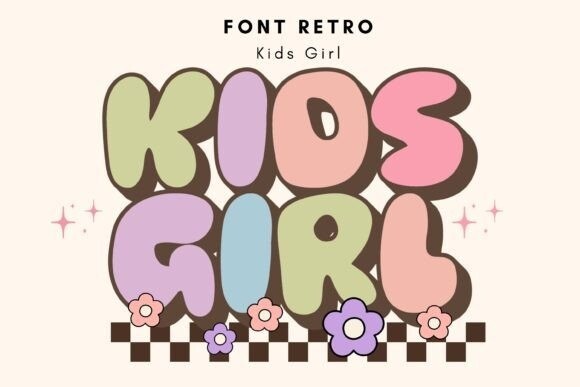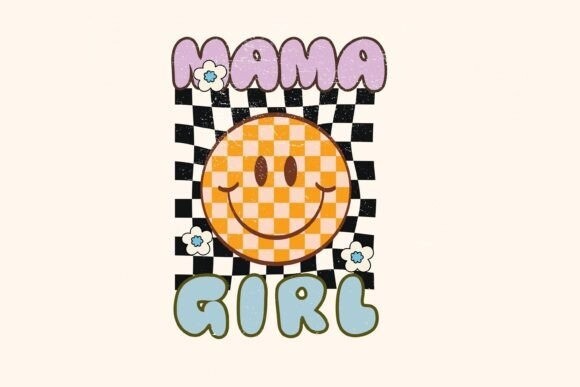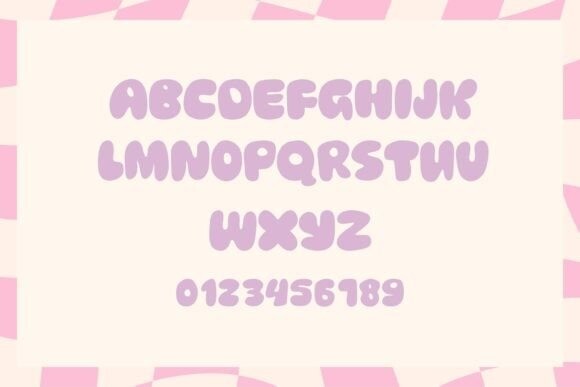
Kids Girl Font
Kids Girl Font is an incredibly cute, and assertive display font. Add it to each of your party invitations, gathering, or pretty much any design that requires a touch of youth and joy.